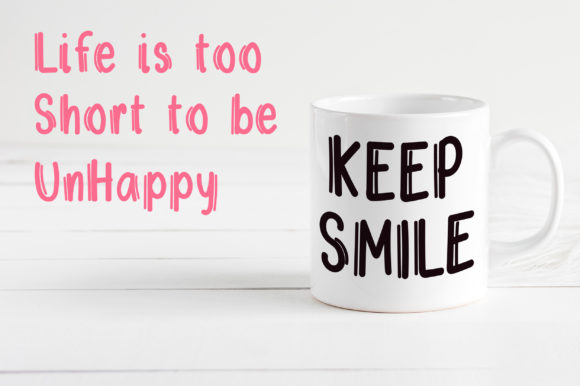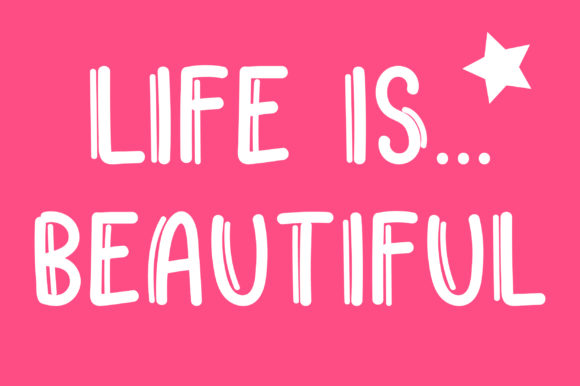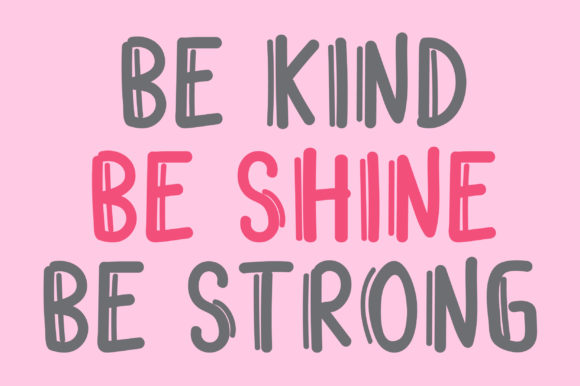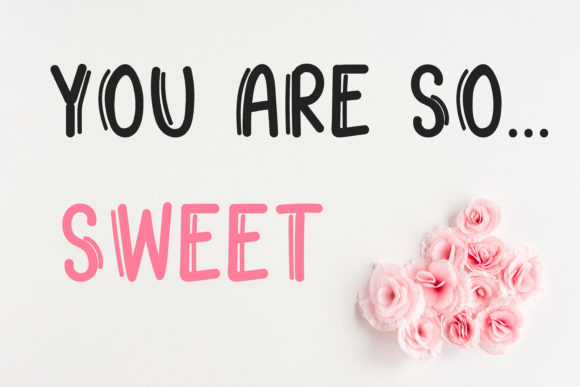
Beautiful Lady Font – Free Download
Introduction to Beautiful Lady Font
Beautiful Lady is a cute and colorful display font.
Its simple style makes this font incredibly versatile, fitting a wide range of contexts Add it to your creative ideas and notice how it makes them stand out.
Key Features of Beautiful Lady Font
Why Choose Beautiful Lady Font?